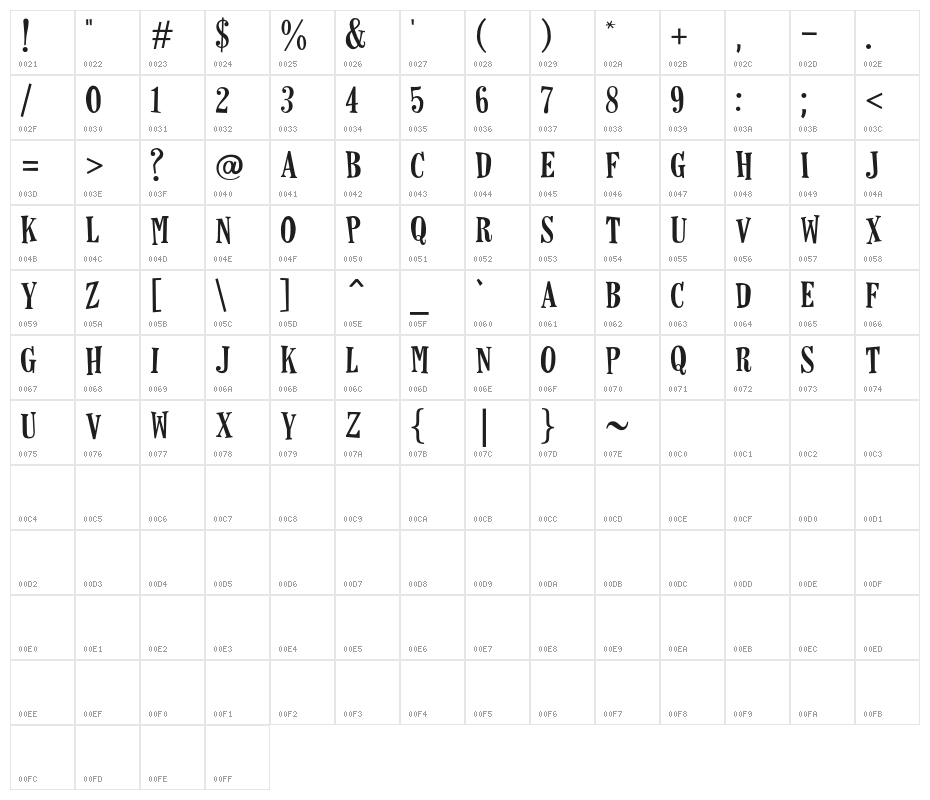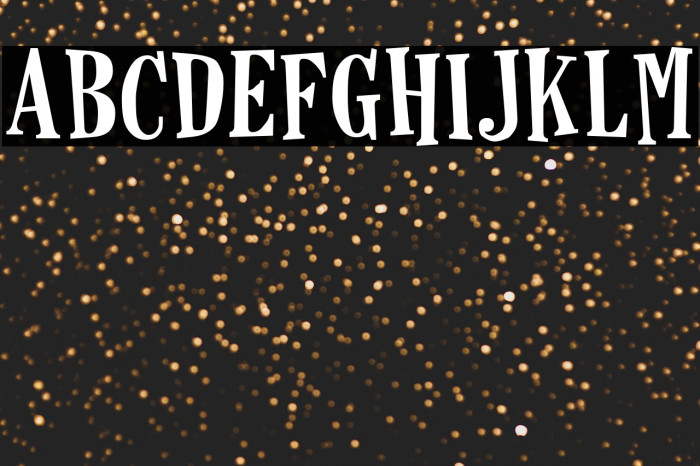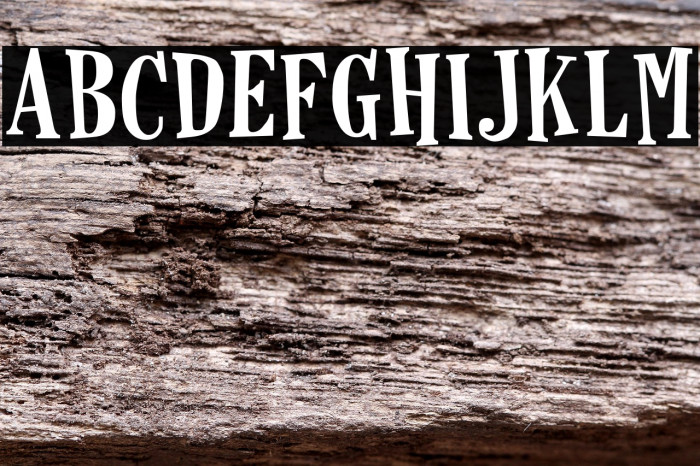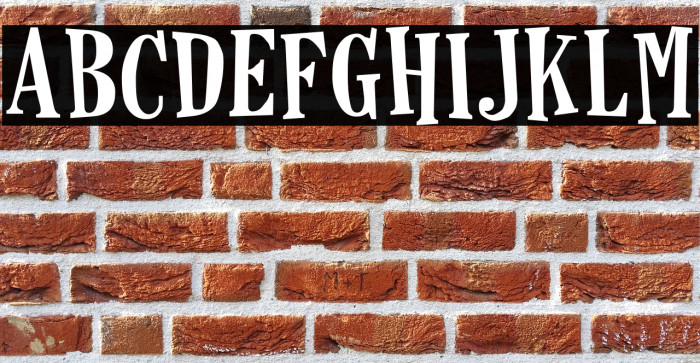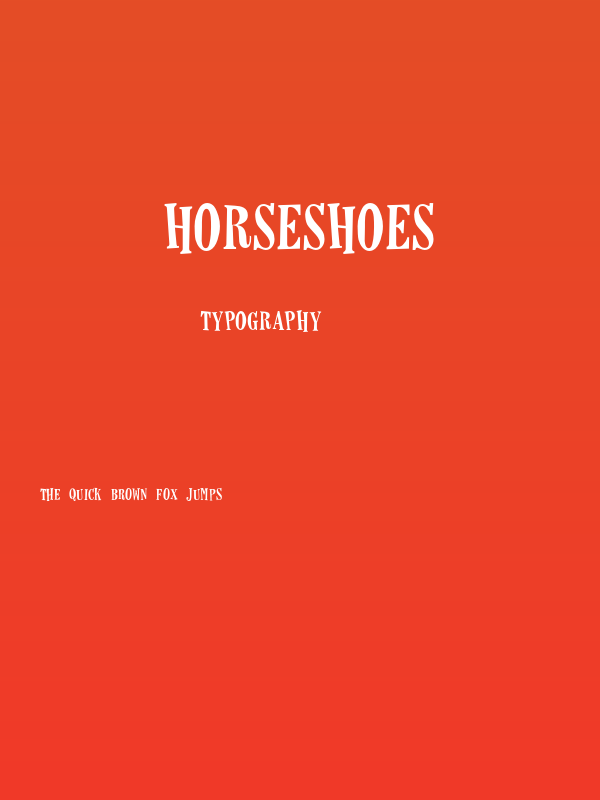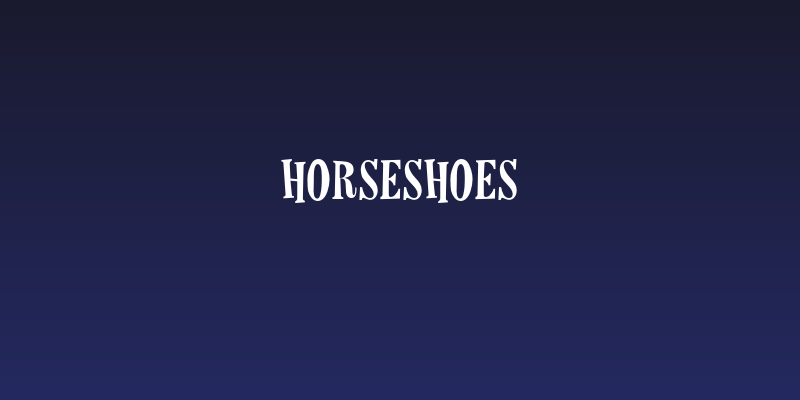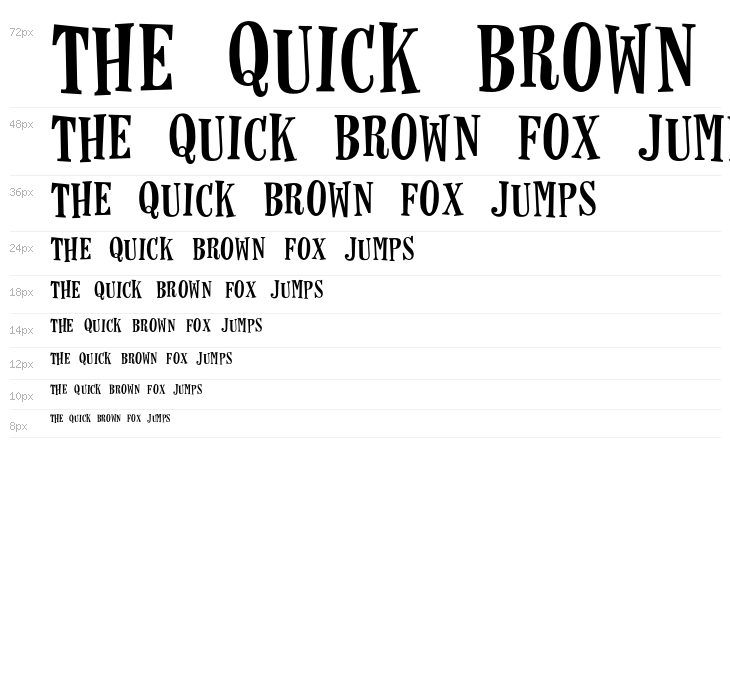
Horseshoes Font
Horseshoes Description
This font features a bold and playful style with a slightly vintage flair. The characters are designed with a whimsical touch, showcasing uneven strokes and a hand-drawn appearance. The uppercase letters are tall and slightly condensed, while the lowercase letters maintain a consistent height, adding to the font's quirky charm. Numbers and special characters follow the same playful design, making them stand out. The overall look is both fun and functional, suitable for a variety of creative projects.
| Overall Style | Vintage, Decorative |
| Proposed Projects | Ideal for children's books, playful branding, posters, and creative invitations. |